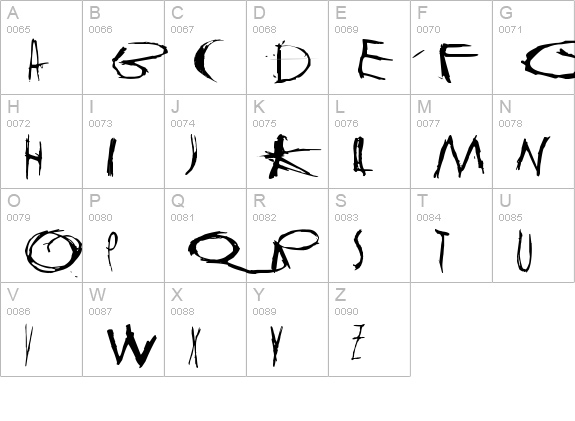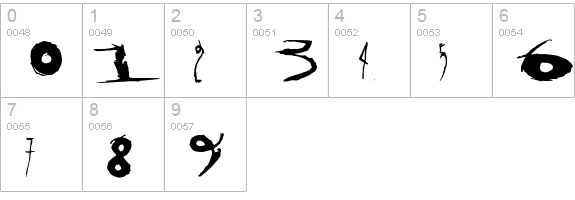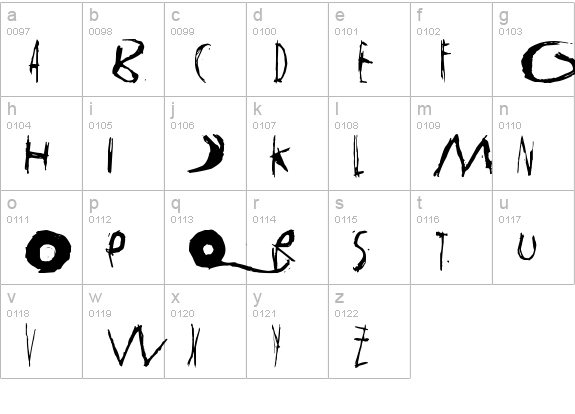
tasapainoaisti_huimaus Font Details
Introducing tasapainoaisti_huimaus font, a unique and striking typeface that effortlessly captures attention with its bold and dynamic appearance. This font exudes a sense of balance and equilibrium, making it perfect for a wide range of design projects. Its modern and edgy design makes it stand out from the crowd, while still maintaining a sense of sophistication and elegance. What sets tasapainoaisti_huimaus font apart is its versatility - it can be used for a variety of purposes, from branding and advertising to editorial design and more. Whether you're looking to create eye-catching headlines or sleek body text, this font has you covered. Best of all, tasapainoaisti_huimaus font is completely free to download at FontsMarket.com. This means you can easily access this stylish and impactful typeface without breaking the bank. Don't miss out on this fantastic opportunity to enhance your design projects with tasapainoaisti_huimaus font - download it today and take your designs to the next level!